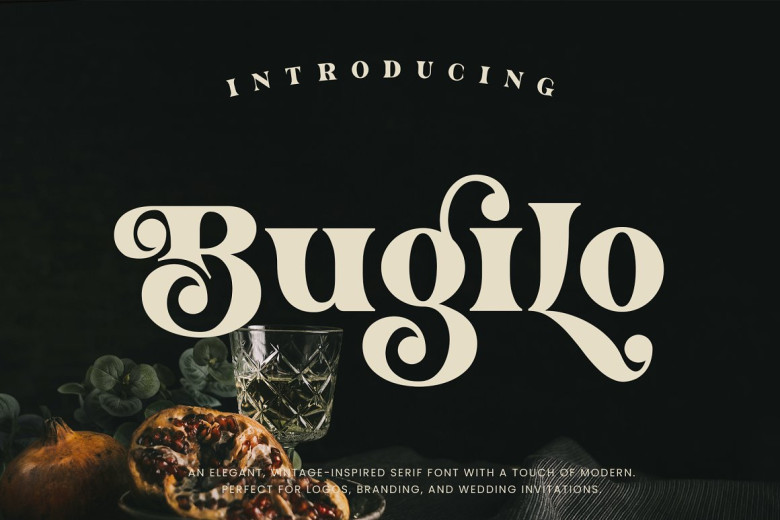
Bugilo Font
Bugilo is an elegant serif font with a vintage vibe, perfect for adding that retro-inspired touch to any design concept! Take advantage of Bugilo’s versatile alternatives to create beautiful posters, quotes, logos and blog posts as well as branding projects, magazine, images, wedding invitations and much more. Designed as the ultimate beloved font – use it now to take all of your ideas forward!
Bugilo Modern Bold Serif Font